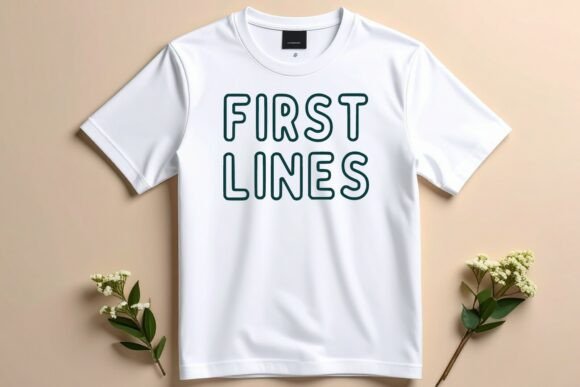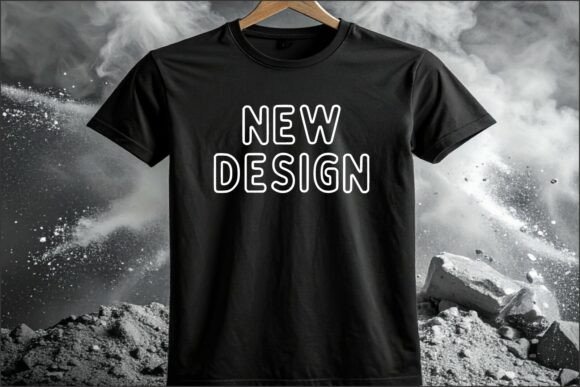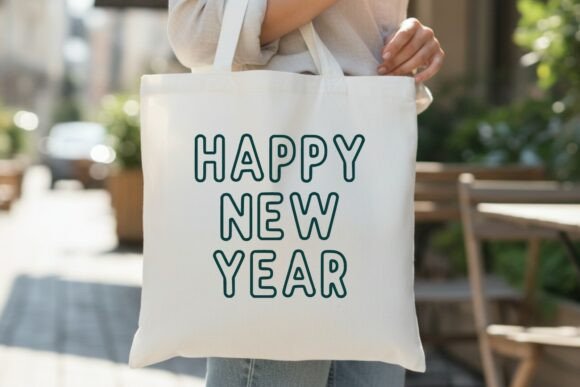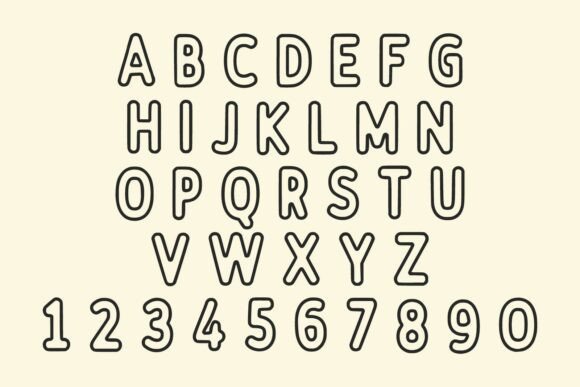
Introduction to First Lines Font
First Lines is a modern outline display font with bold rounded shapes and clean line strokes.
This font features a minimalist outline style that gives a stylish, retro-modern feel while remaining highly readable Perfect for logos, posters, headlines, branding, t-shirts, packaging, social media graphics, quotes, and creative projects.